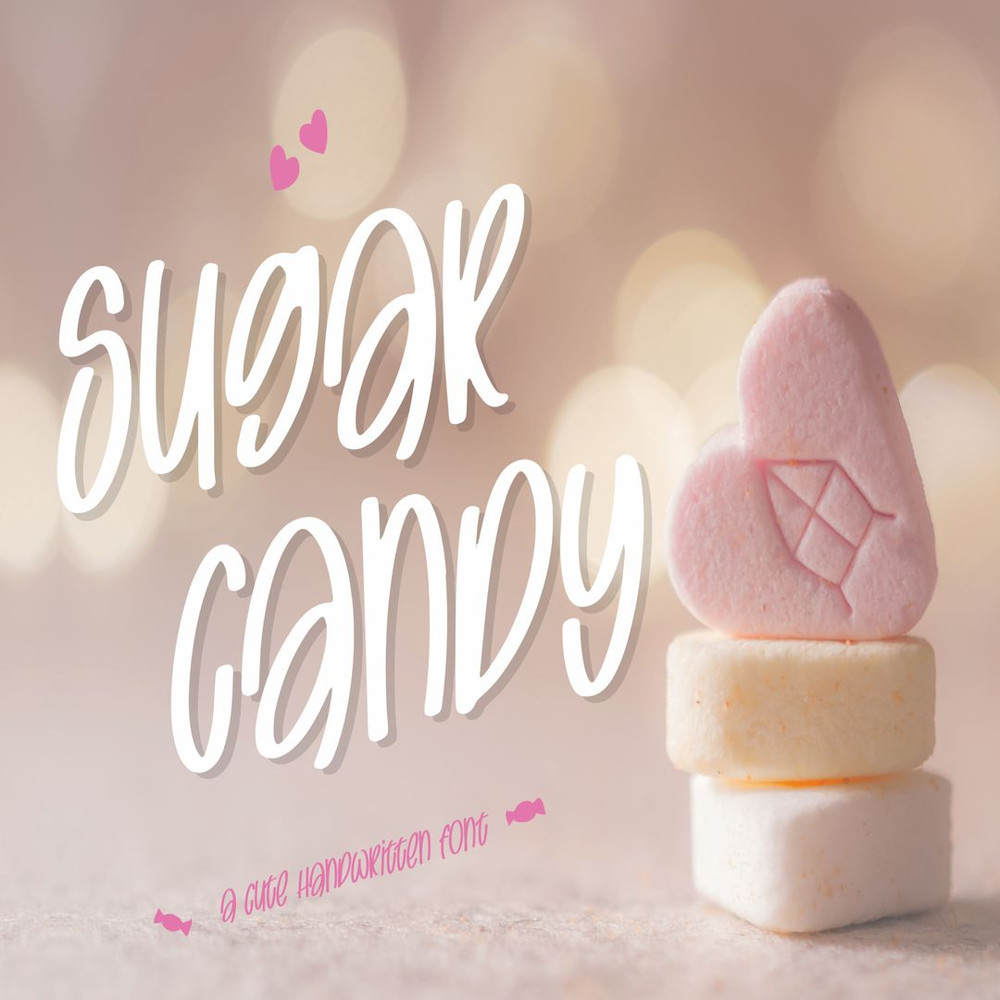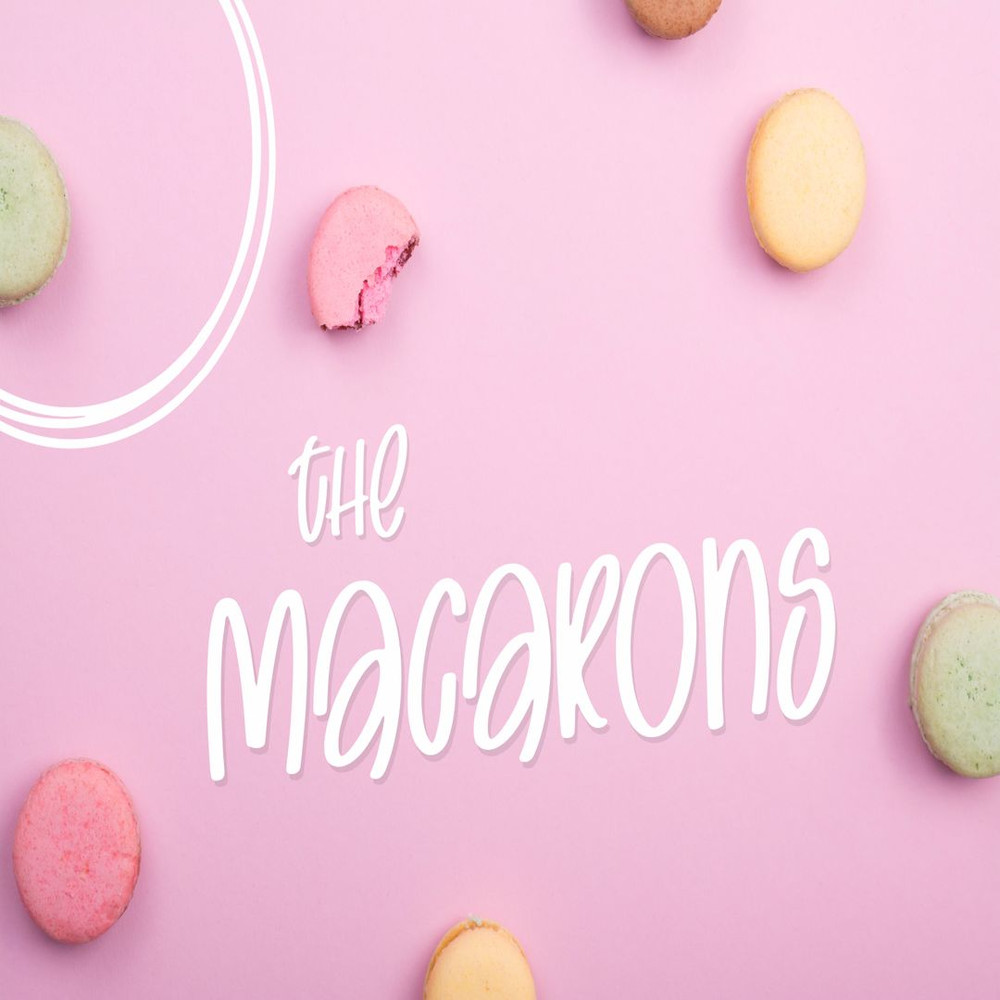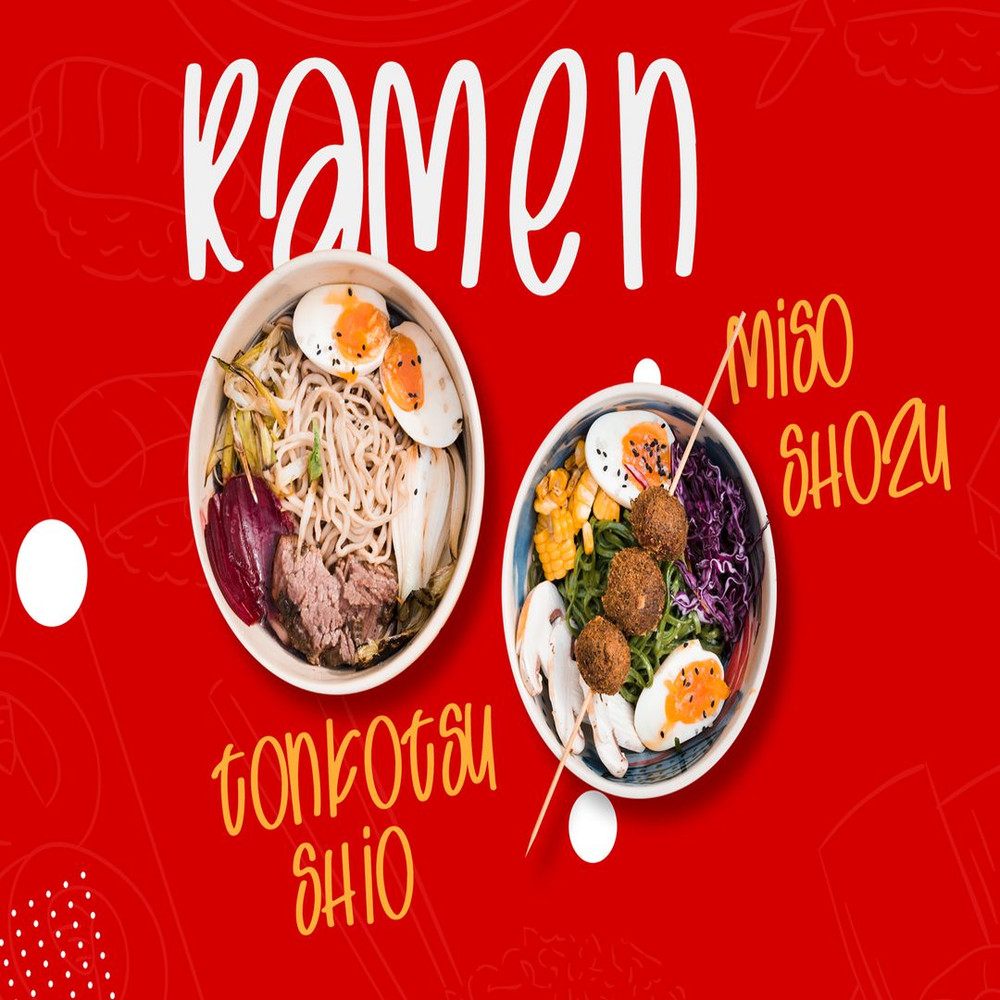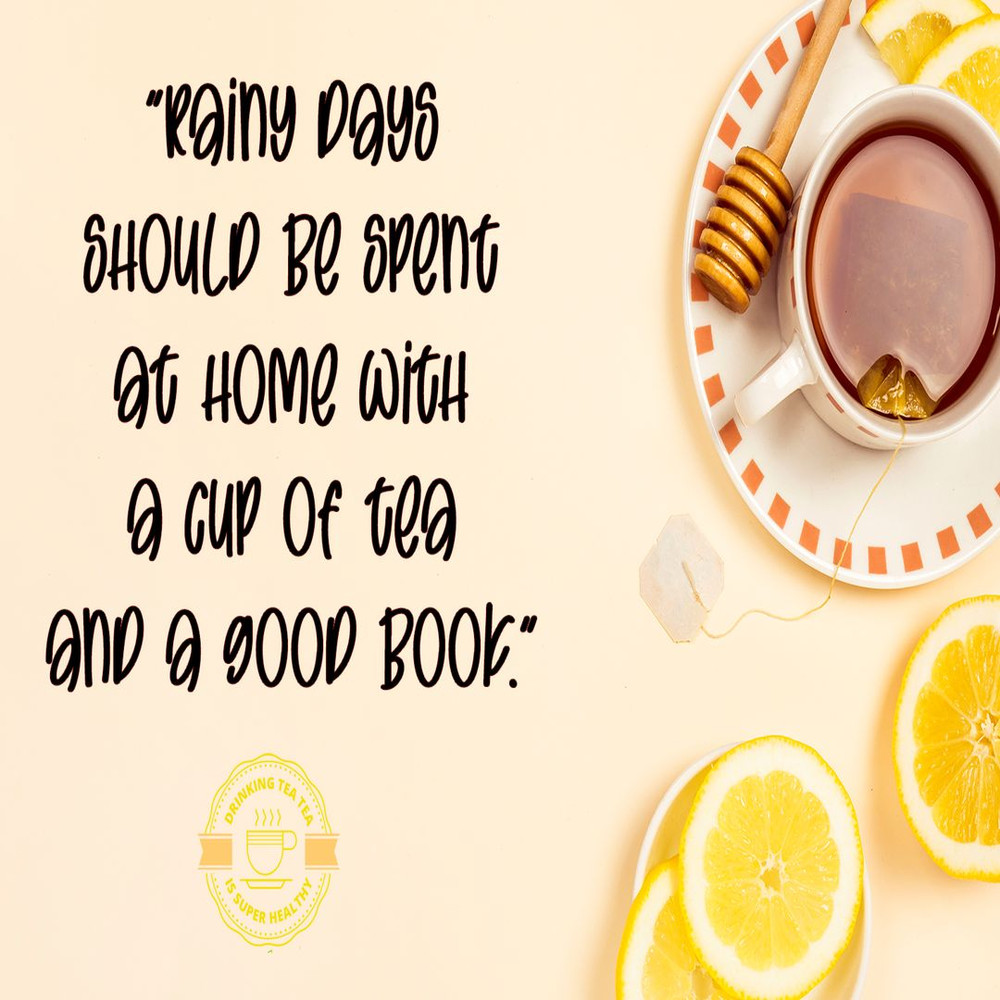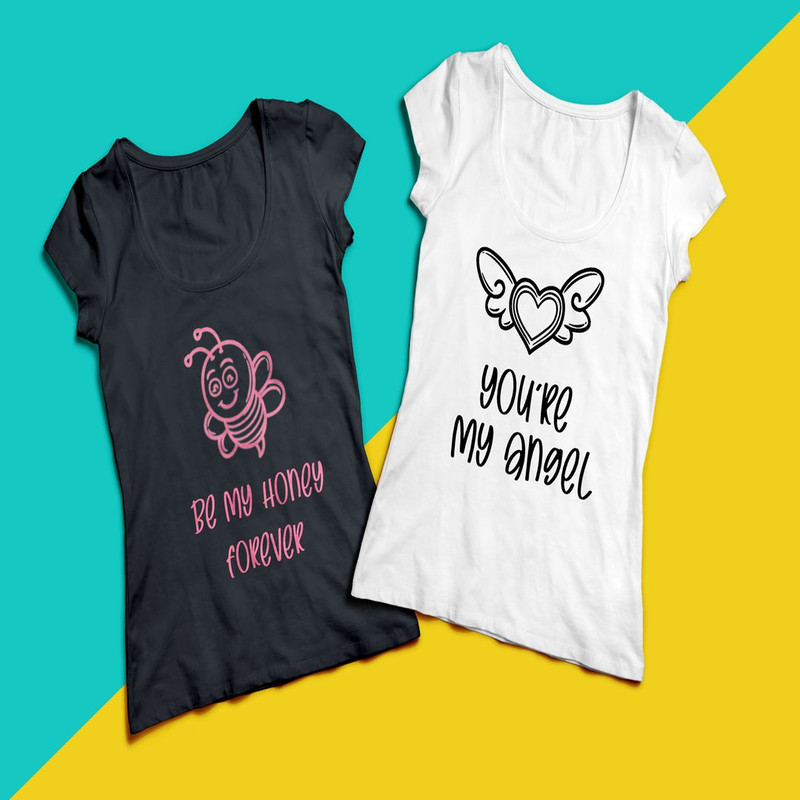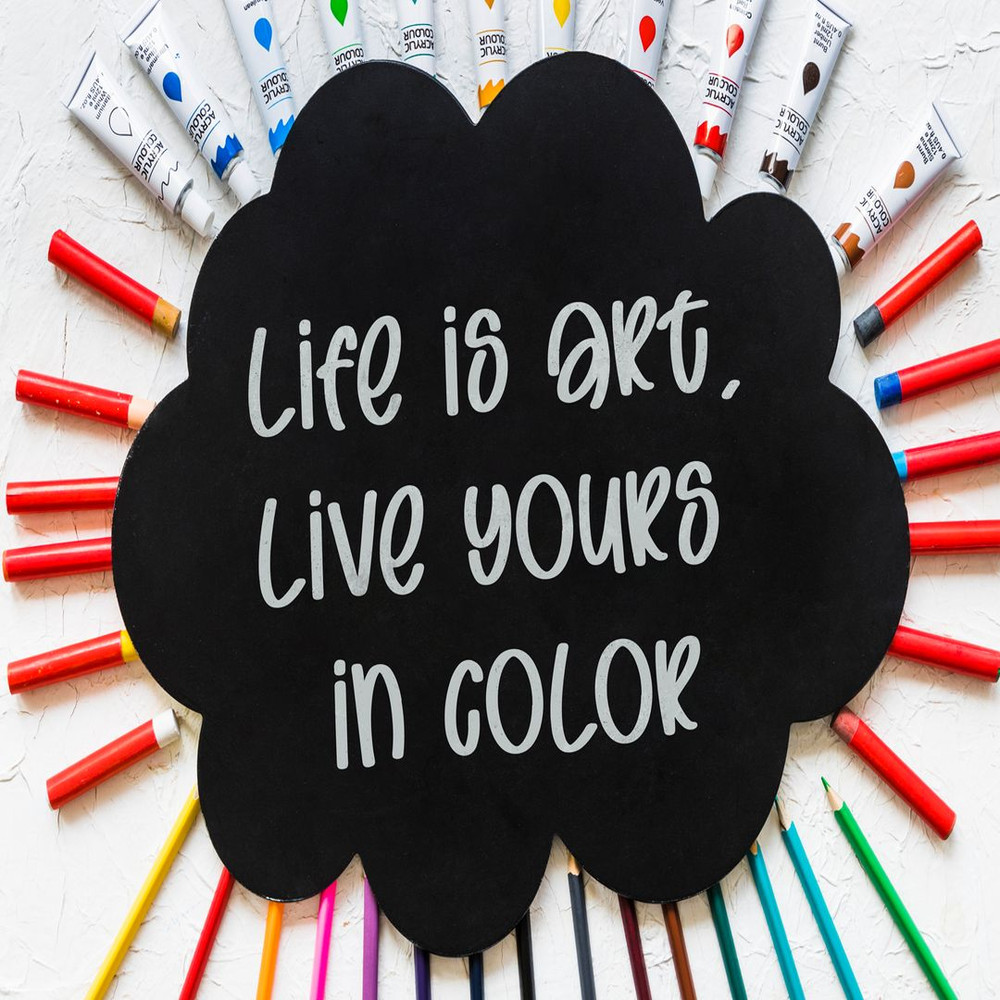
Sugar Candy – Sweet and Quirky Font rending Fonts - Digital Font
Sugar candy is a playful, sweet, and quirky font that will work perfectly for kids projects or any business that wants to appear fun and playful.